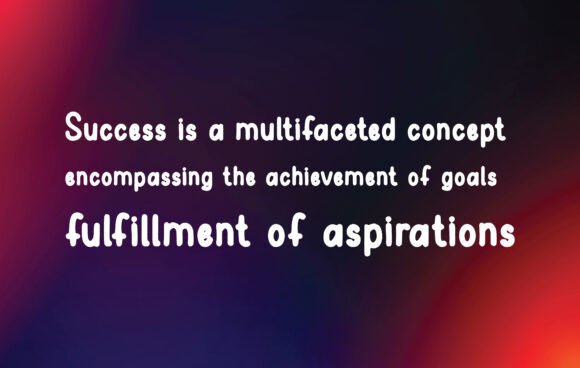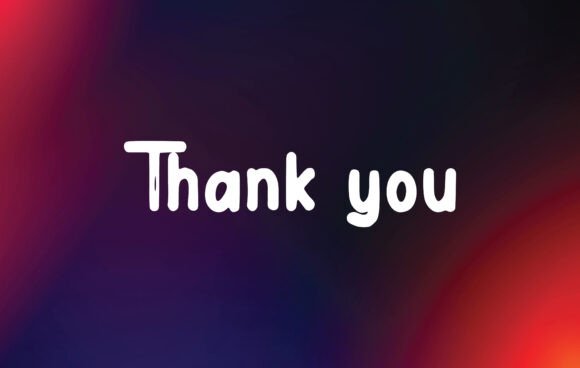
Bear Font: Elevate Your Creative Projects with this Lovely Handwritten Font
Are you a designer, craftsperson, or creative enthusiast looking for a font that can add a touch of elegance and personality to your projects? Look no further than Bear Font, a beautiful handwritten font that has the potential to take your creative ideas to the highest level. In this article, we’ll explore the features and benefits of Bear Font, and why it’s the best choice for creating eye-catching logos, branding, and quotes.
What is Bear Font?
Bear Font is a lovely and beautiful handwritten font that is designed to add a personal touch to your creative projects. With its unique and elegant lettering style, Bear Font is perfect for creating visually appealing designs that stand out from the crowd. Whether you’re working on a logo, branding project, or social media graphics, Bear Font is the perfect choice.
Key Features of Bear Font
- Handwritten style: Bear Font has a beautiful handwritten style that gives your designs a personal and unique touch.
- Elegant lettering: The font features elegant lettering with subtle curves and lines that add a touch of sophistication to your designs.
- Versatile: Bear Font is versatile and can be used for a wide range of creative projects, from logos and branding to quotes and social media graphics.
- Easily readable: The font is easily readable, making it perfect for body text and captions.
Benefits of Using Bear Font
So, why choose Bear Font for your creative projects? Here are just a few benefits of using this lovely handwritten font:
- Adds a personal touch: Bear Font adds a personal touch to your designs, making them more relatable and engaging.
- Creates visual interest: The unique and elegant lettering style of Bear Font creates visual interest and makes your designs stand out.
- Perfect for branding: Bear Font is perfect for branding projects, as it helps to create a consistent and recognizable visual identity.
Examples of Bear Font in Action
Here are a few examples of Bear Font in action:
- Logos: Use Bear Font to create a unique and memorable logo for your business or brand.
- Branding: Use Bear Font consistently across your branding materials, such as business cards, letterheads, and social media graphics.
- Quotes: Use Bear Font to create visually appealing quotes and social media graphics.
In conclusion, Bear Font is a lovely and beautiful handwritten font that has the potential to take your creative ideas to the highest level. With its unique and elegant lettering style, Bear Font is perfect for creating eye-catching logos, branding, and quotes. Whether you’re a designer, craftsperson, or creative enthusiast, Bear Font is a great choice for adding a personal touch to your creative projects.